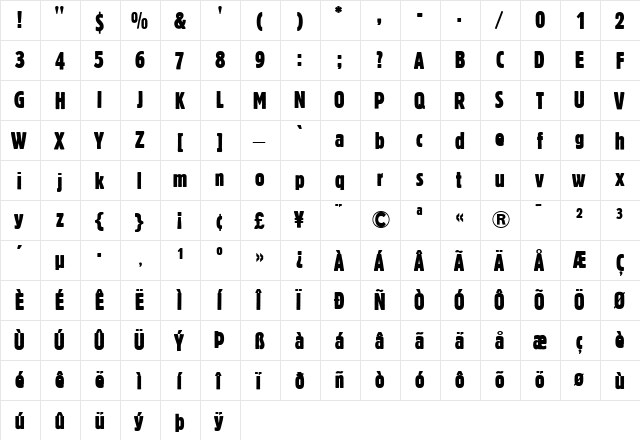
BlockBerthold-ExtraCondensed Roman
Design Context for BlockBerthold-ExtraCondensed Typeface
BlockBerthold-ExtraCondensed is a composed and adaptable typeface that performs quietly and consistently across a wide range of design contexts. Its narrow stance lets it pack a punch even in space-constrained designs.